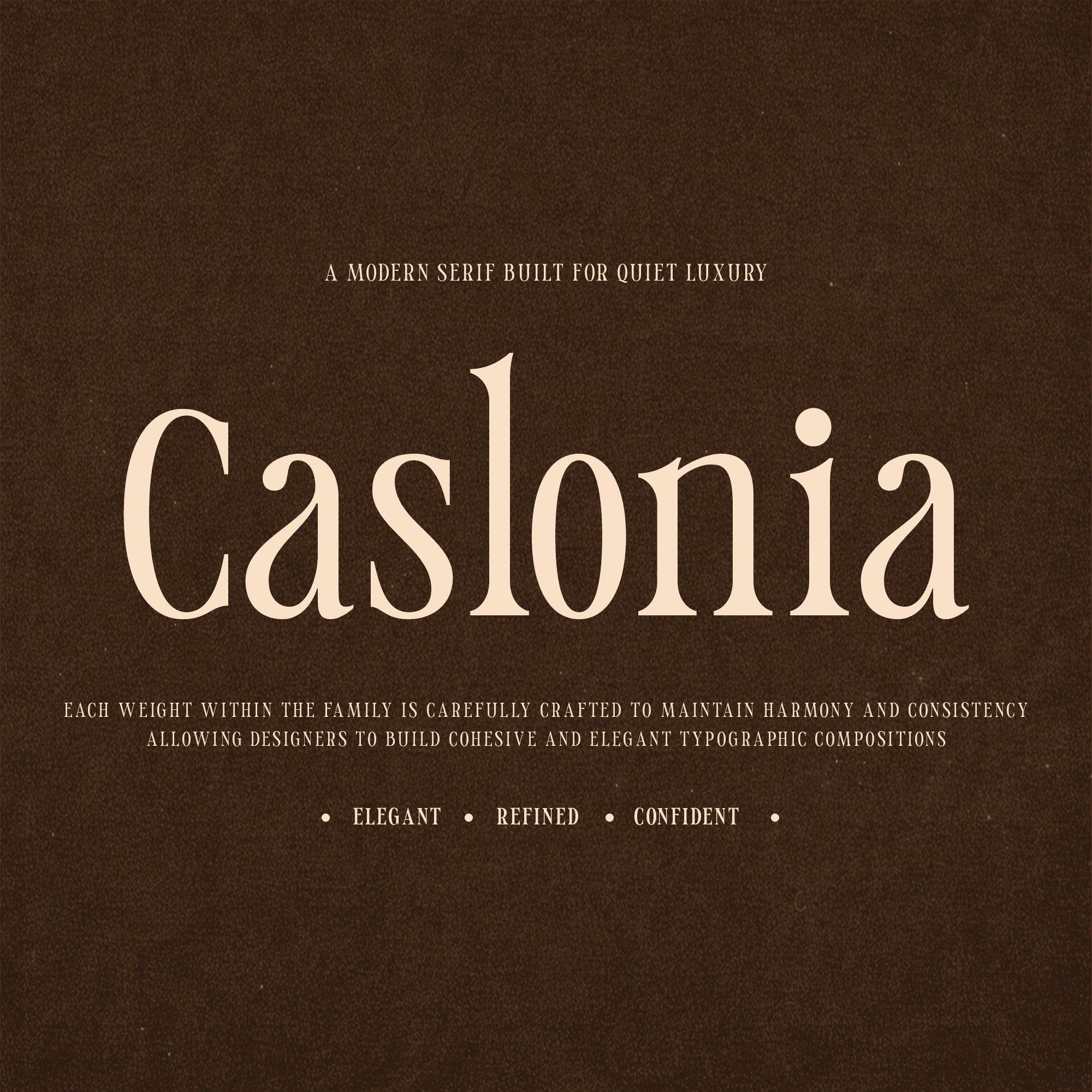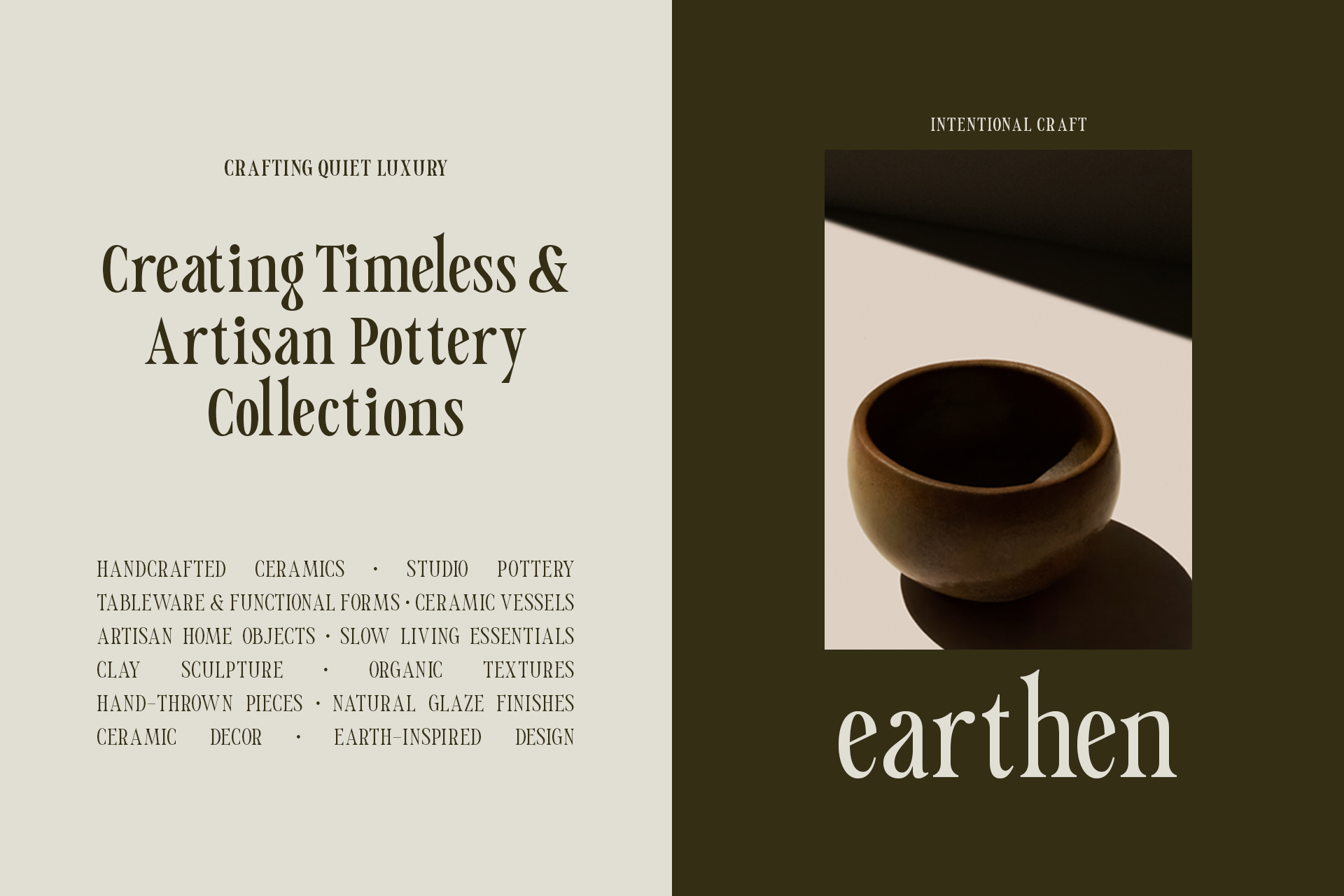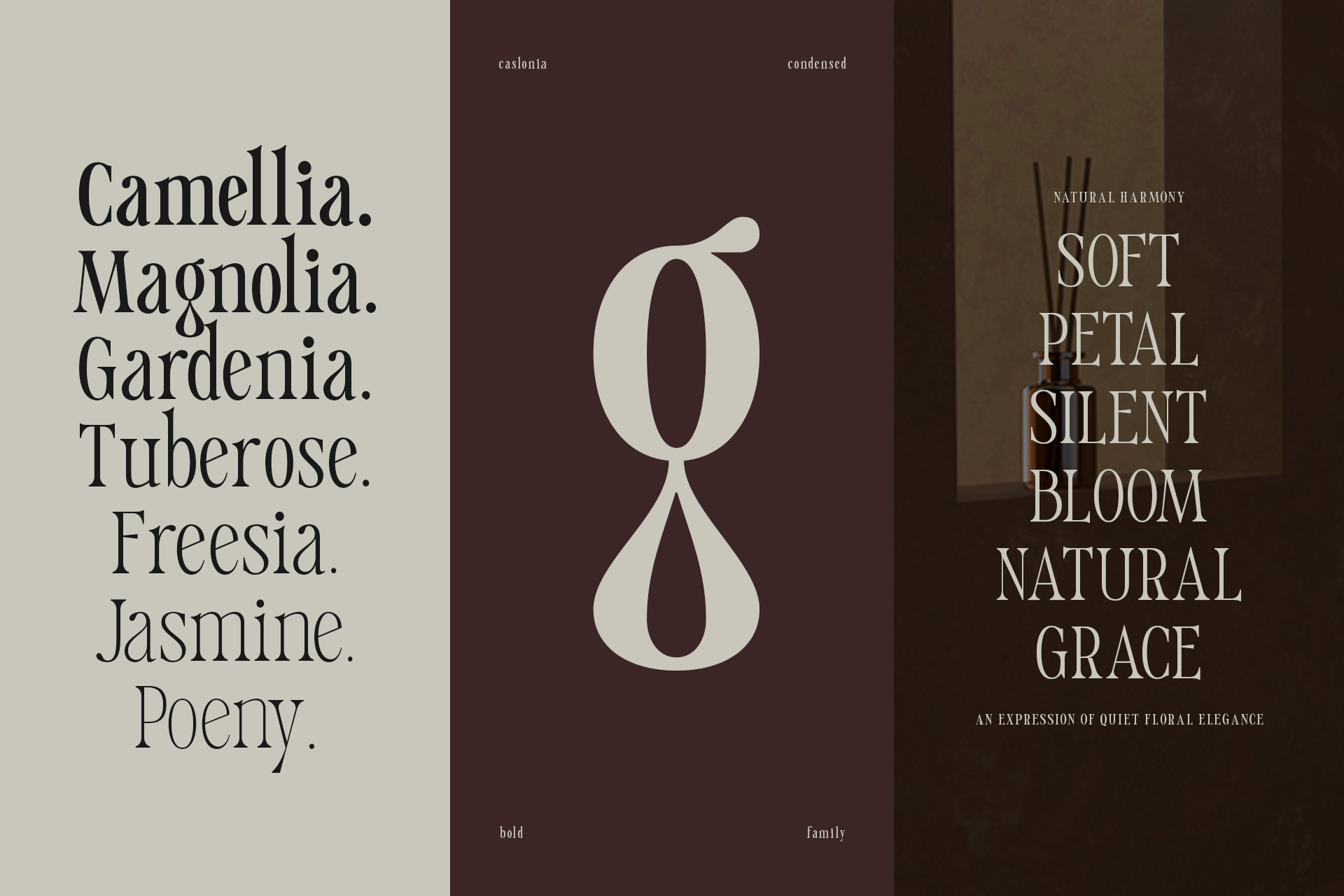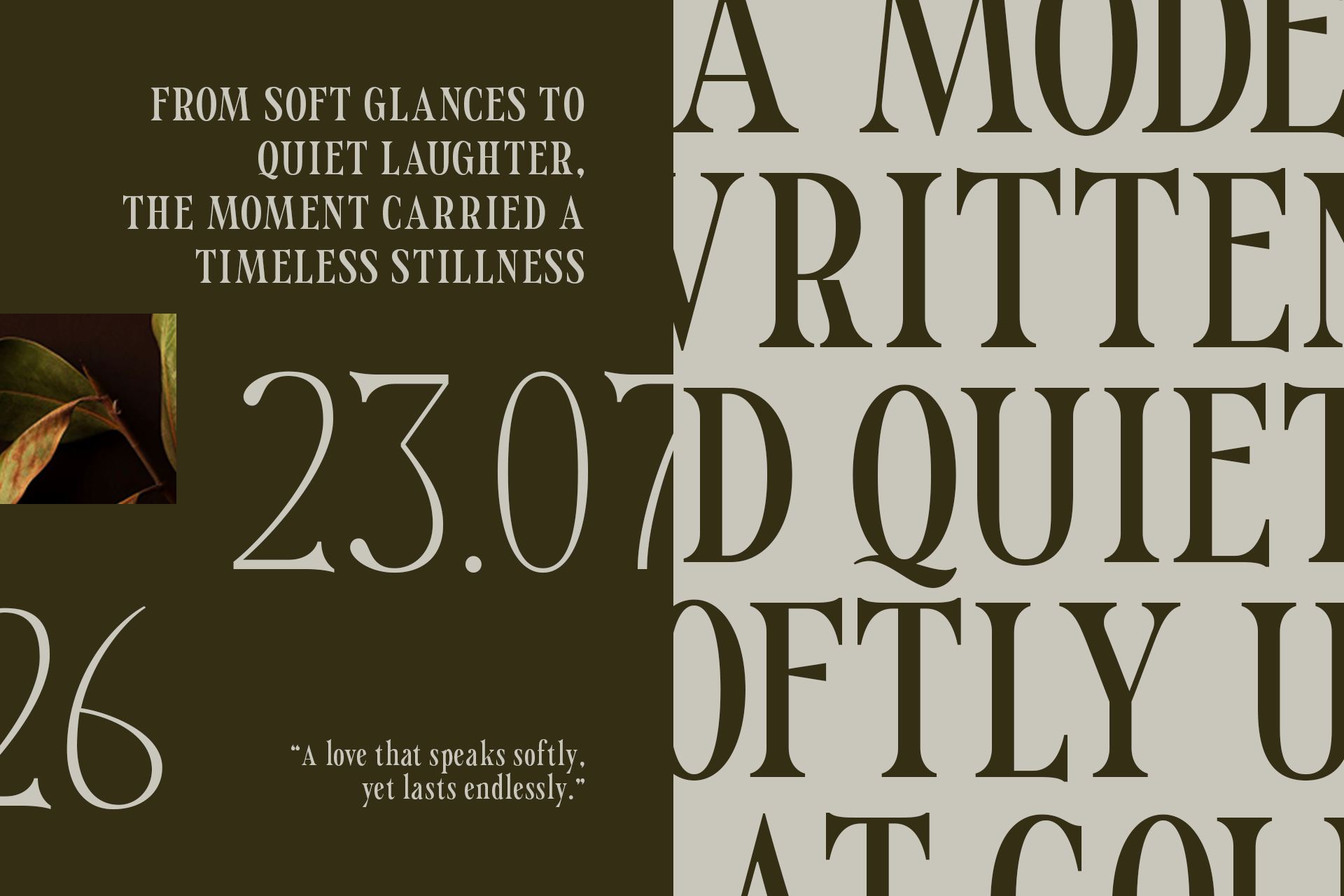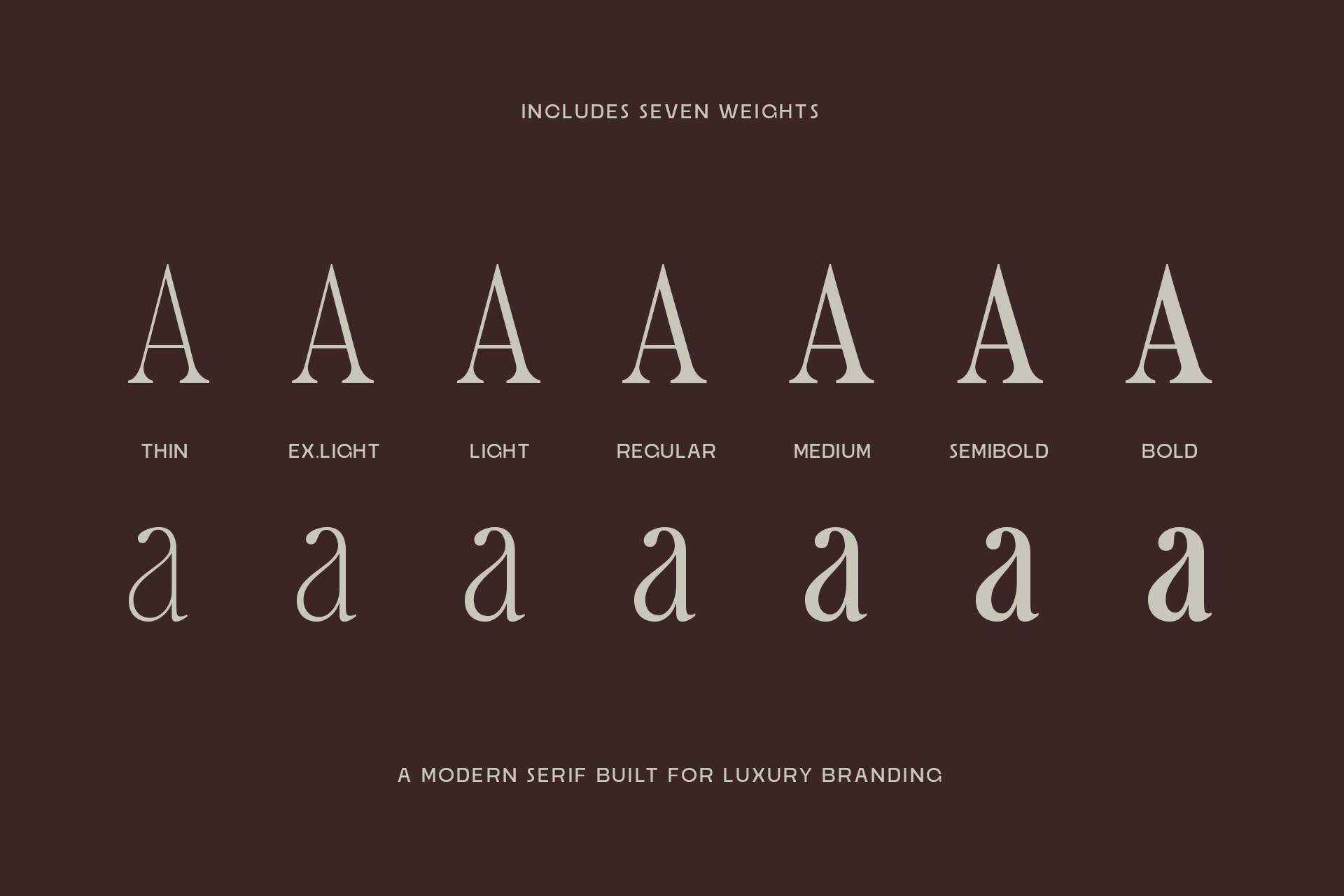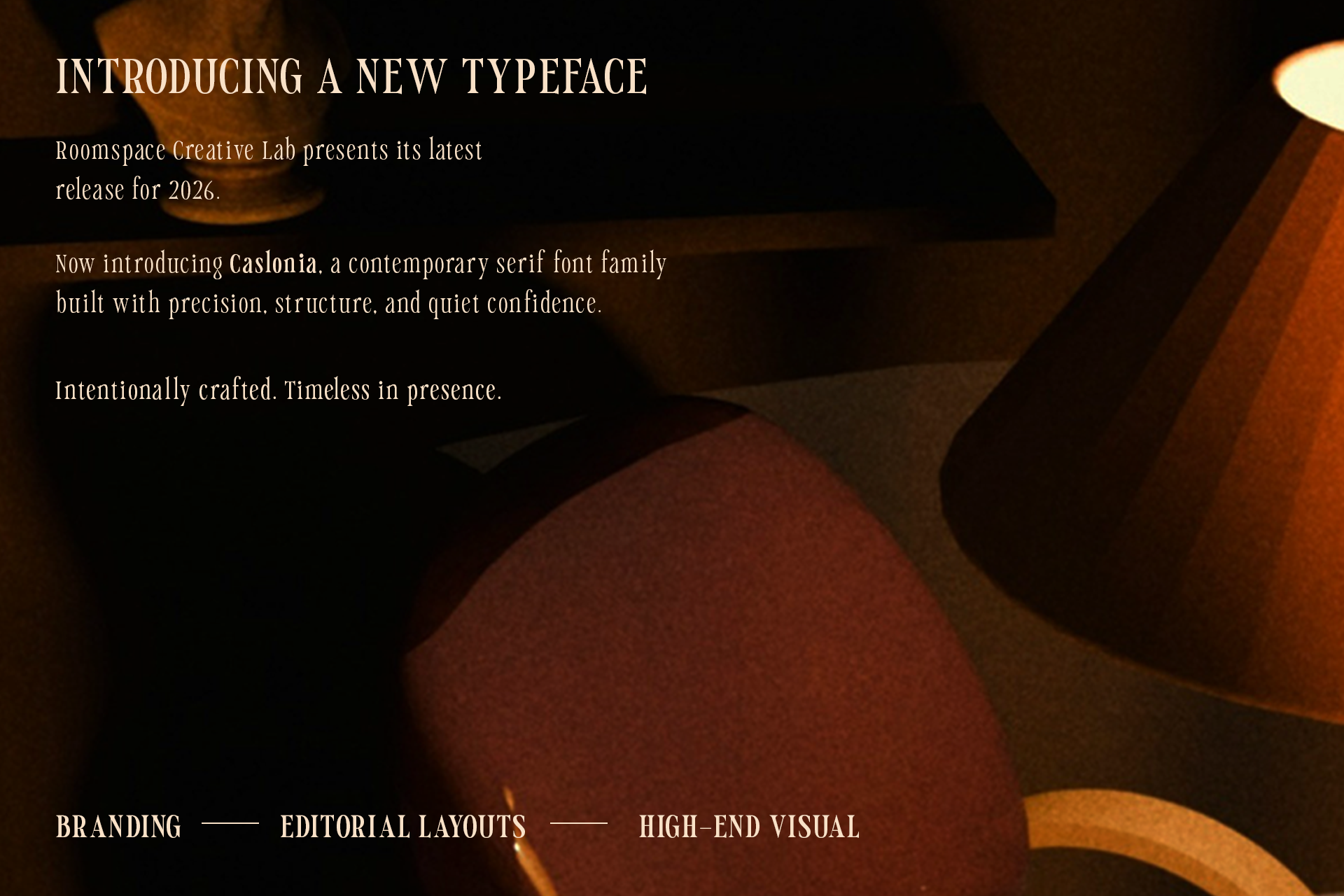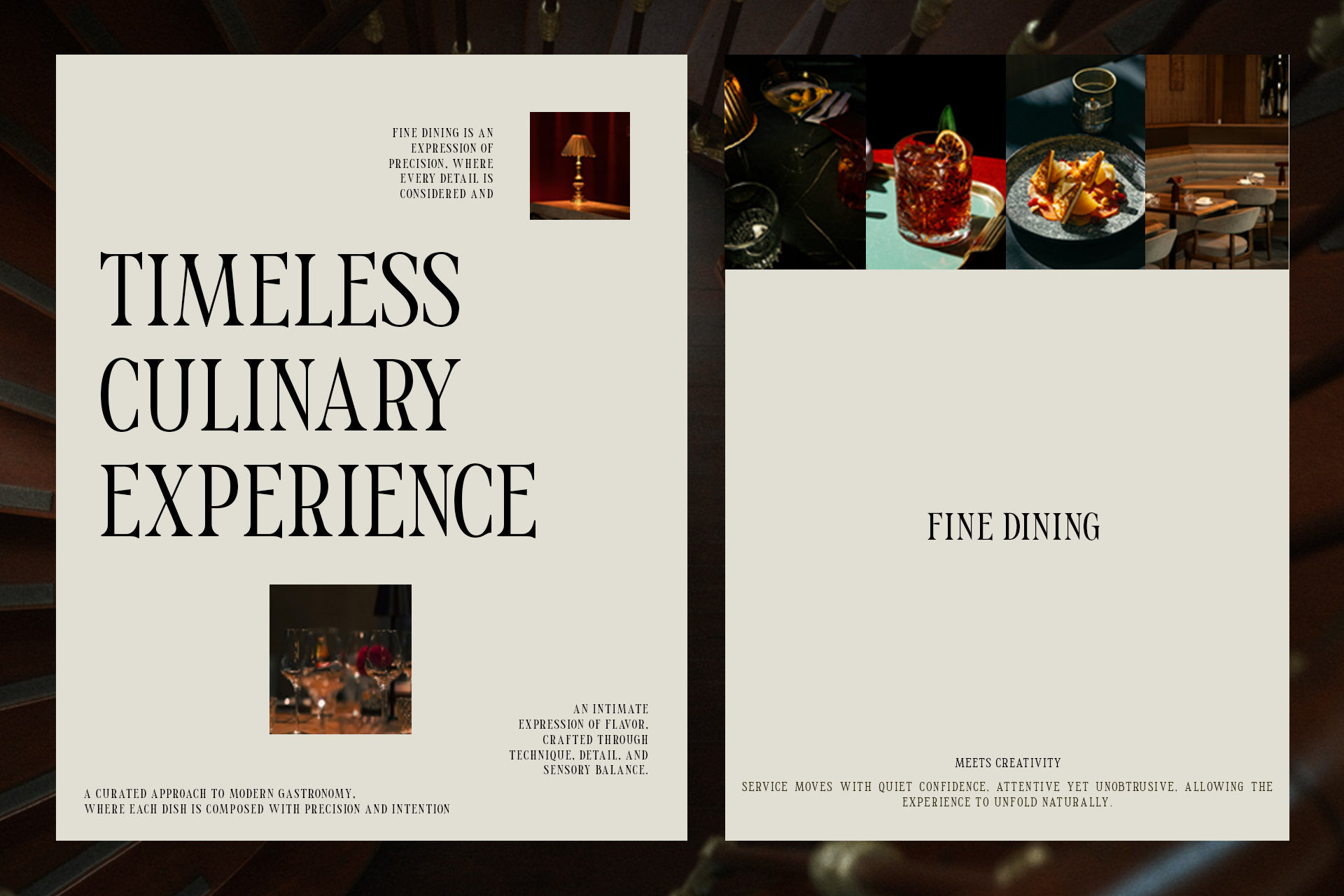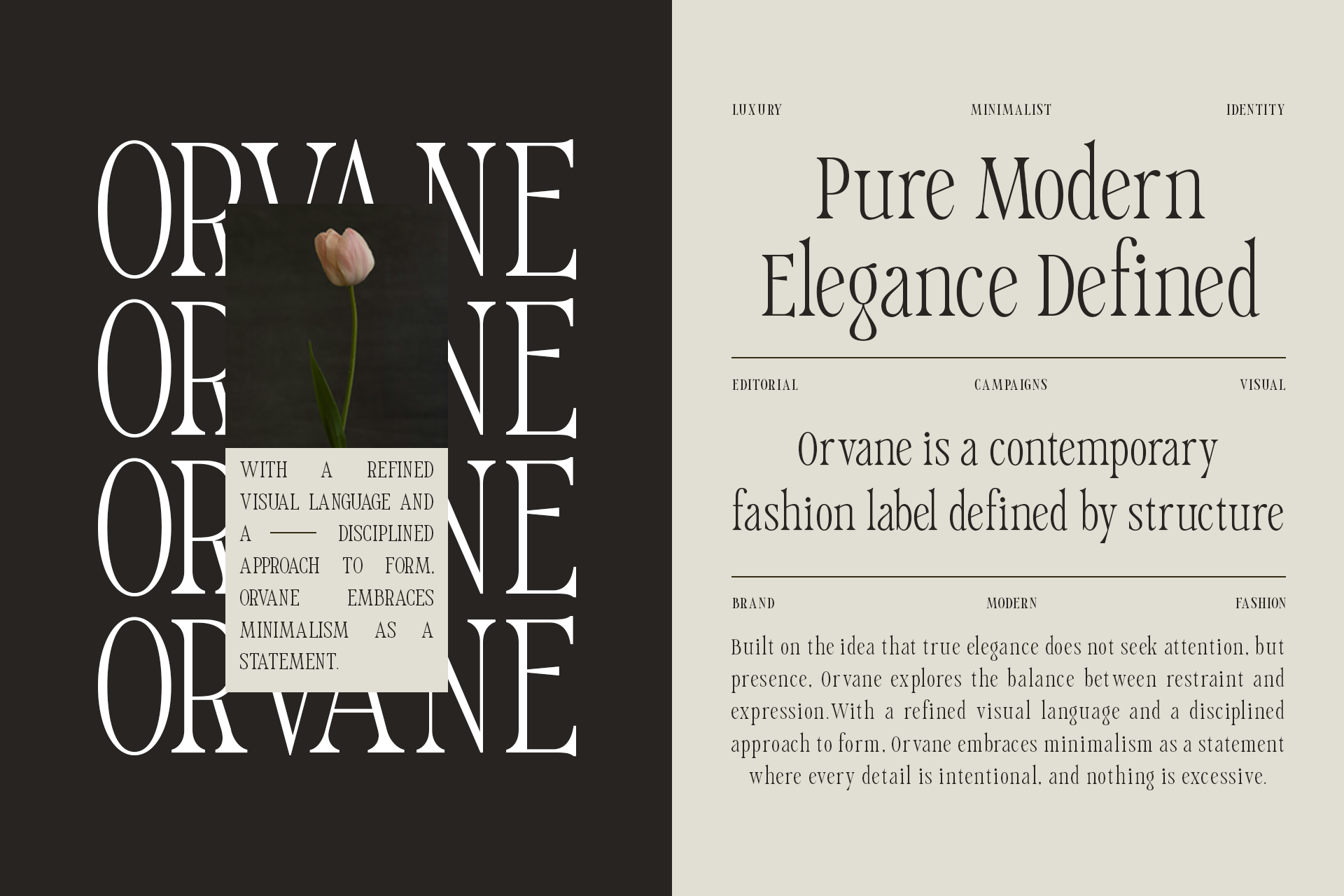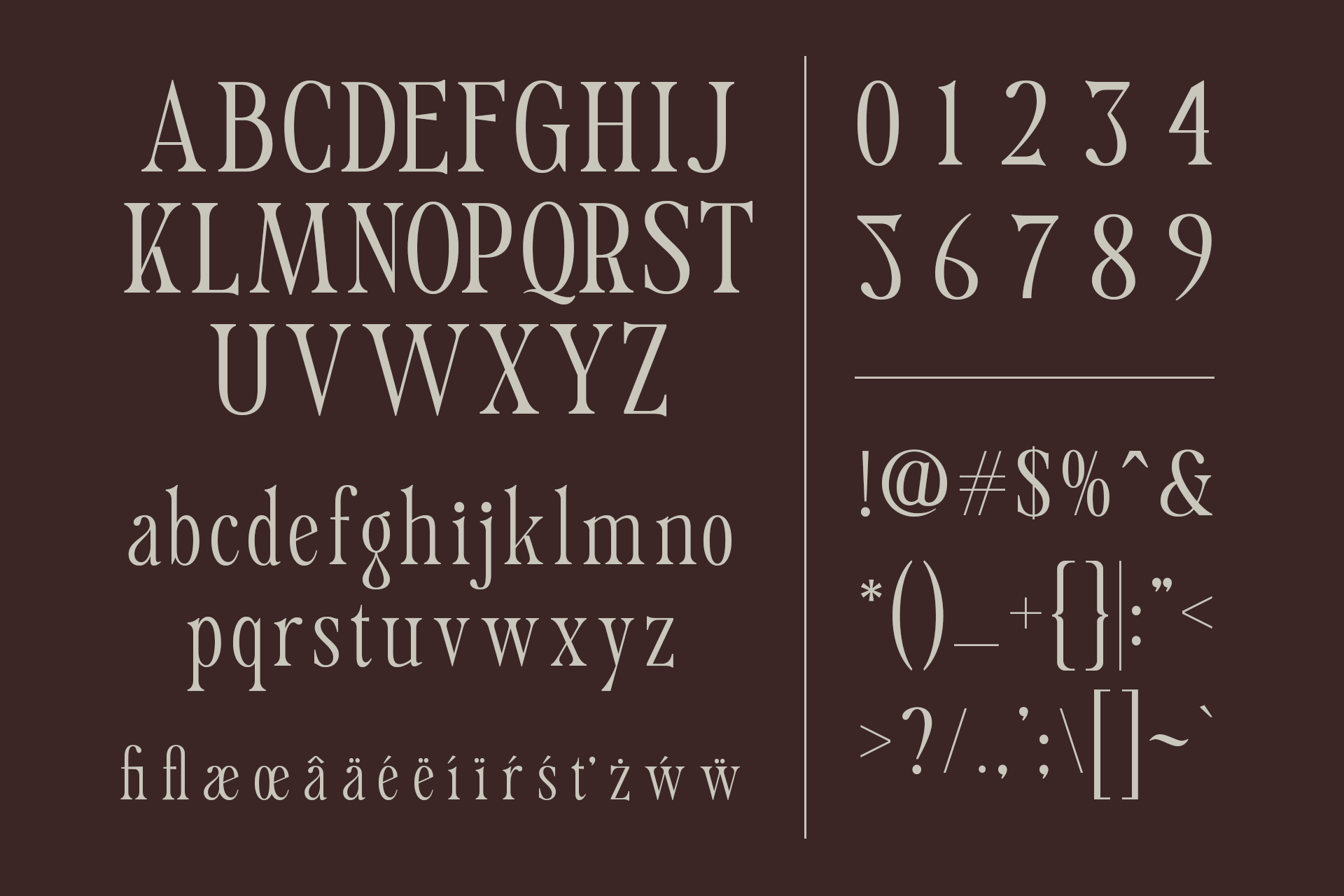
Caslonia - Retro Branding Logo Font
Caslonia is a meticulously crafted serif typeface that blends timeless elegance with modern versatility. Inspired by classic editorial typography, it exudes sophistication and refinement while maintaining a contemporary charm. Its balanced letterforms and graceful proportions make Caslonia a go-to choice for designers seeking a polished and professional look. Caslonia provides unmatched flexibility for a wide range of creative projects. Each weight is carefully optimized for legibility, offering smooth curves, refined contrast, and harmonious kerning. Whether used in headlines or body text, Caslonia delivers a cohesive and elegant appearance that elevates any design. Perfect for branding, magazines, packaging, and editorial layouts, Caslonia adds a timeless sophistication to both print and digital work. Its adaptability makes it suitable for luxury branding, fashion identities, and elegant publications. Add Caslonia to your font library today and experience the art of modern classic typography.
Caslonia is a meticulously crafted serif typeface that combines classic editorial inspiration with modern versatility. Featuring balanced letterforms and optimized legibility across various weights, it is suitable for a wide range of creative projects, including branding and editorial layouts.